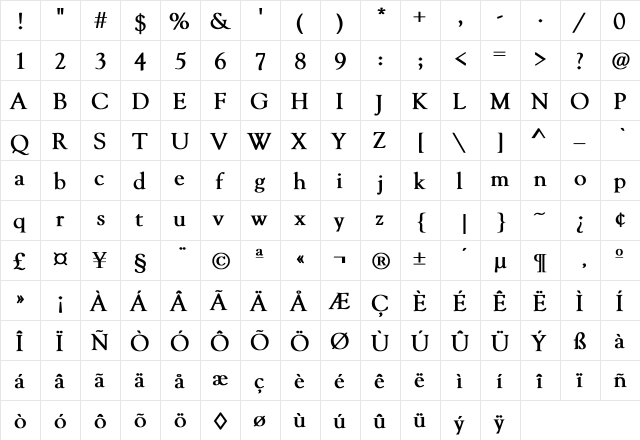
Galopin Bold
Design Context for Galopin Typeface
Galopin offers clean, dependable letterforms without strong stylistic allegiance, making it a practical choice for designers who need flexibility. Its bold stroke weight gives it real presence on the page.